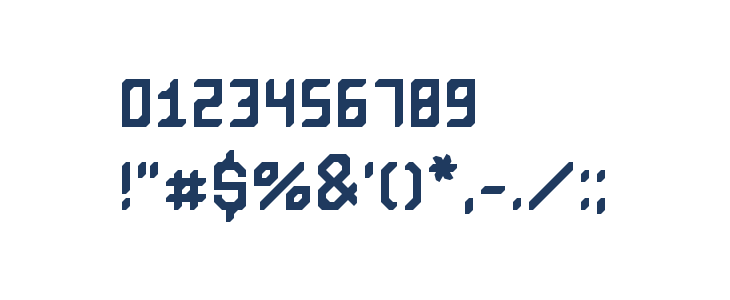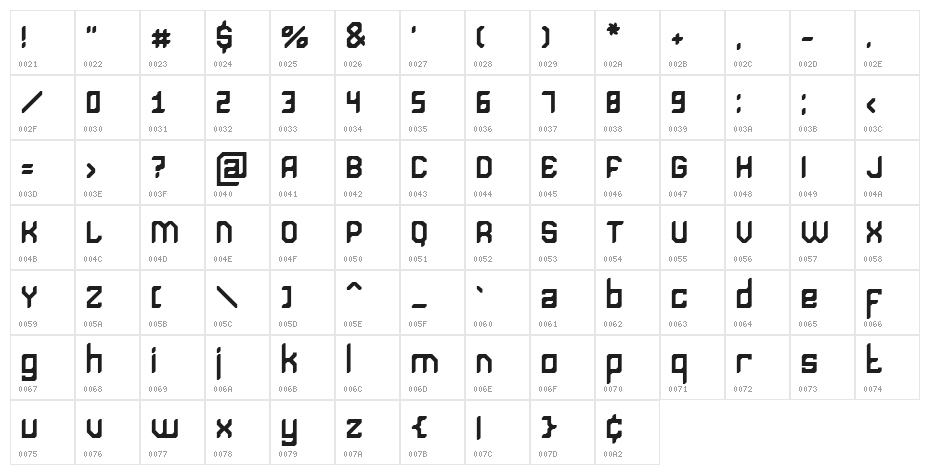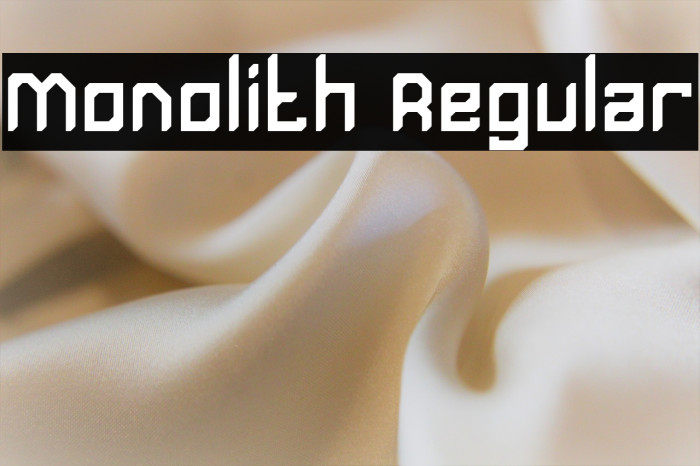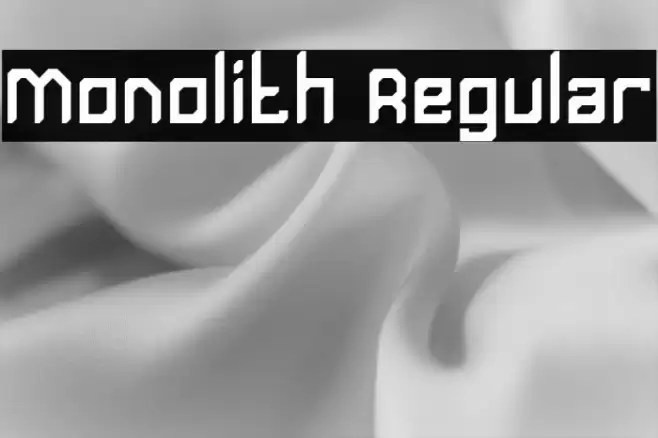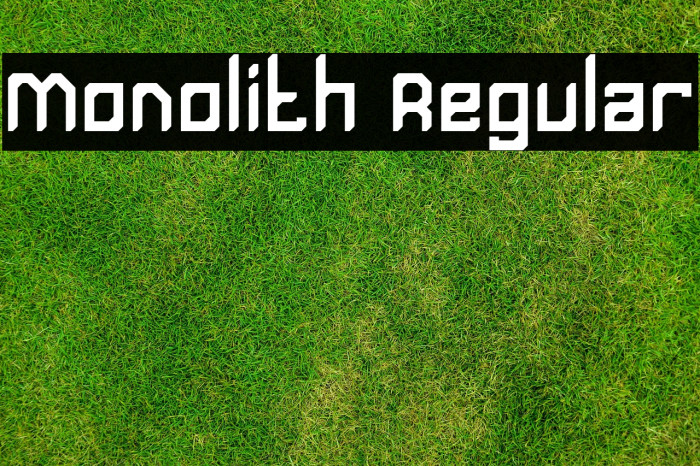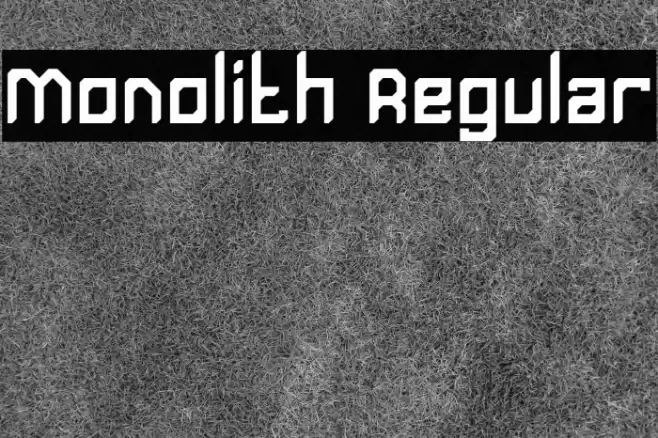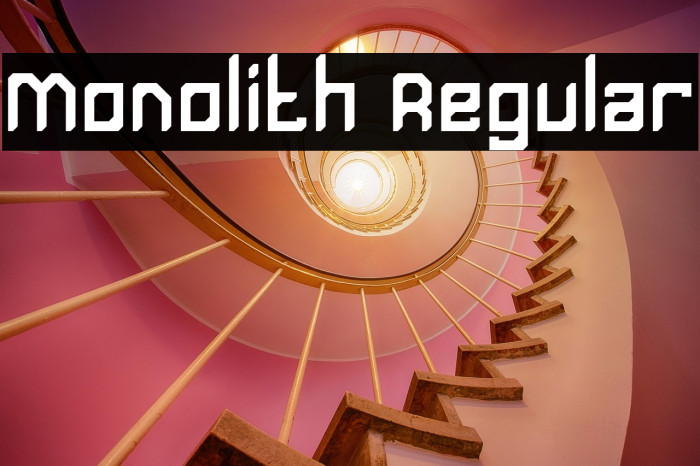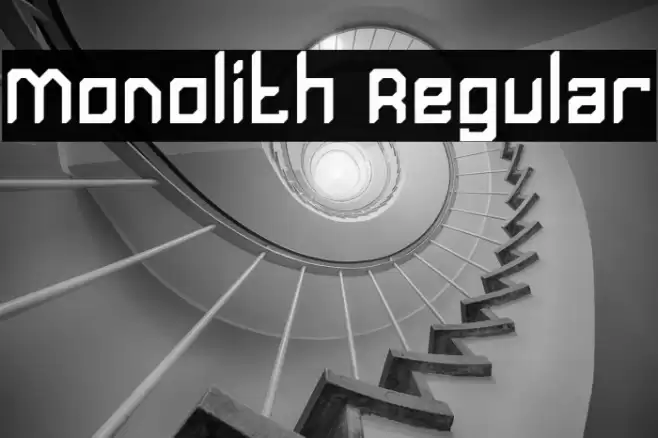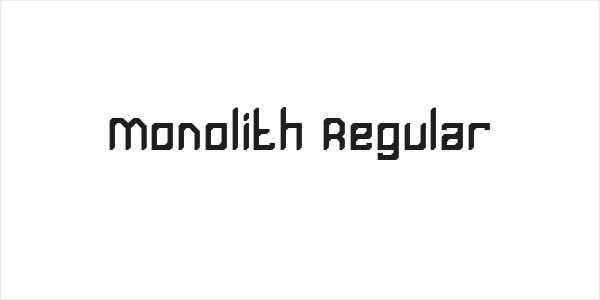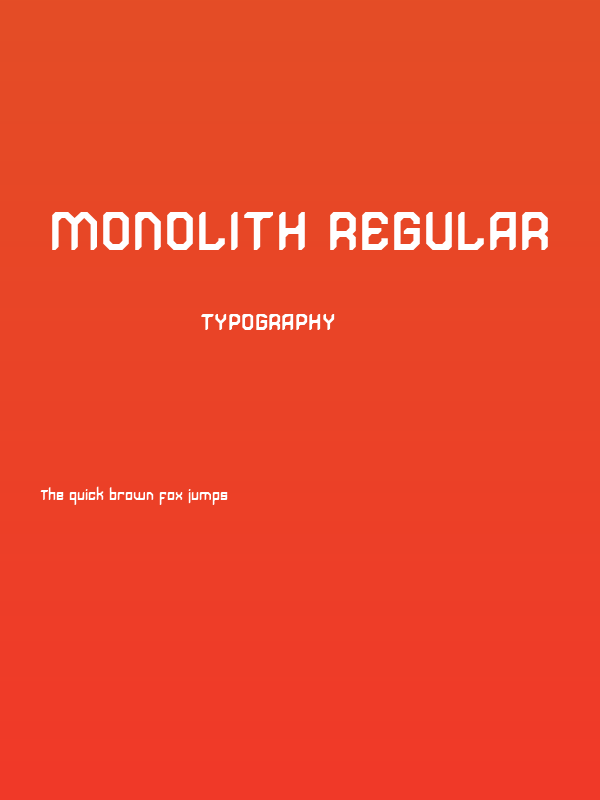
Monolith Regular Font
Monolith Regular Description
This font features a bold, geometric design with a futuristic aesthetic. The characters are constructed with sharp angles and straight lines, giving it a digital, tech-inspired look. The uppercase and lowercase letters maintain a consistent style, with a uniform height and width that enhances readability. The numbers and special characters follow the same design principles, ensuring a cohesive appearance across all glyphs. Its strong presence and unique style make it suitable for projects that require a modern and edgy feel.
| Proposed Projects | Ideal for technology branding, video game titles, sci-fi movie posters, and digital interfaces. |